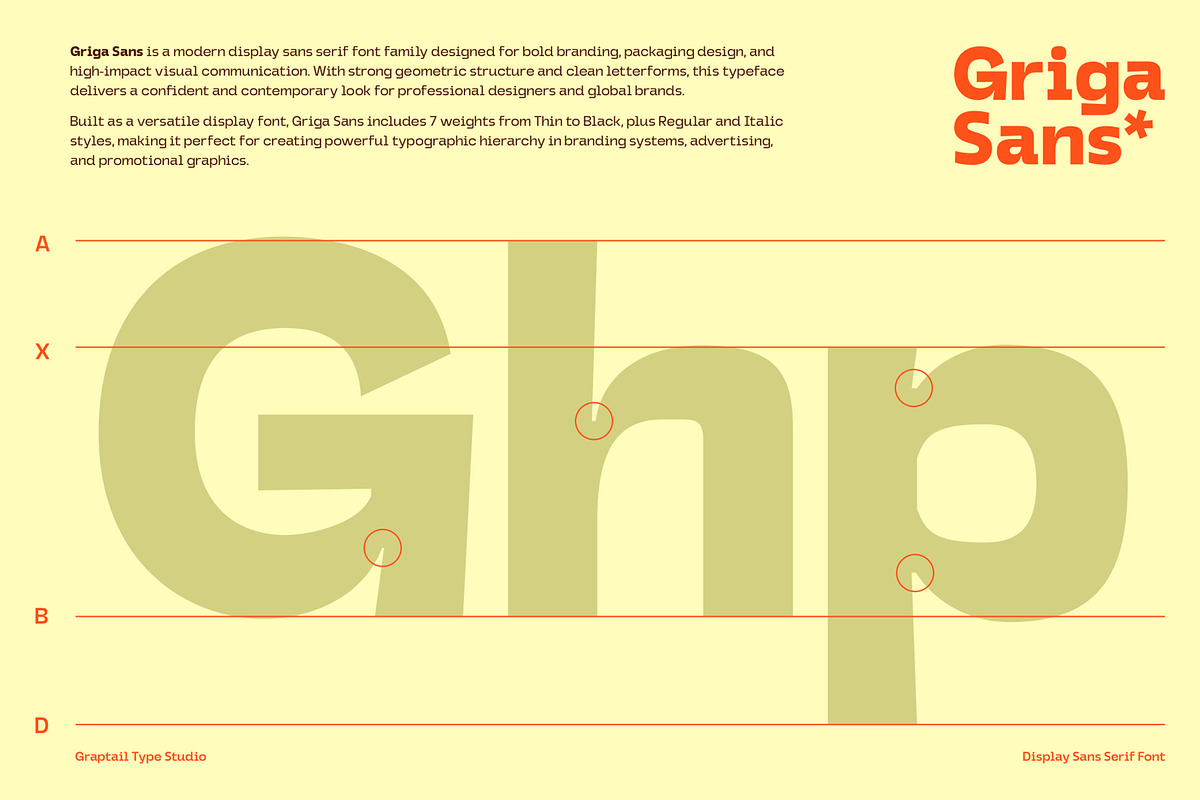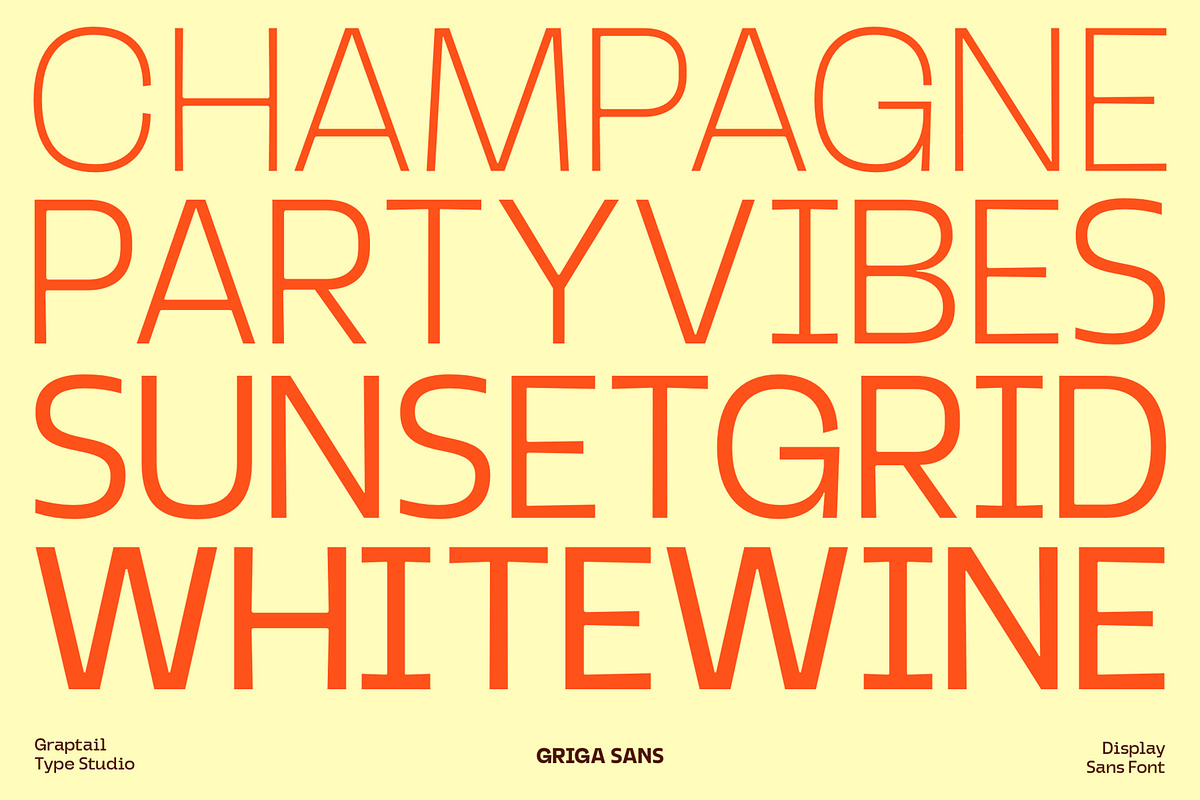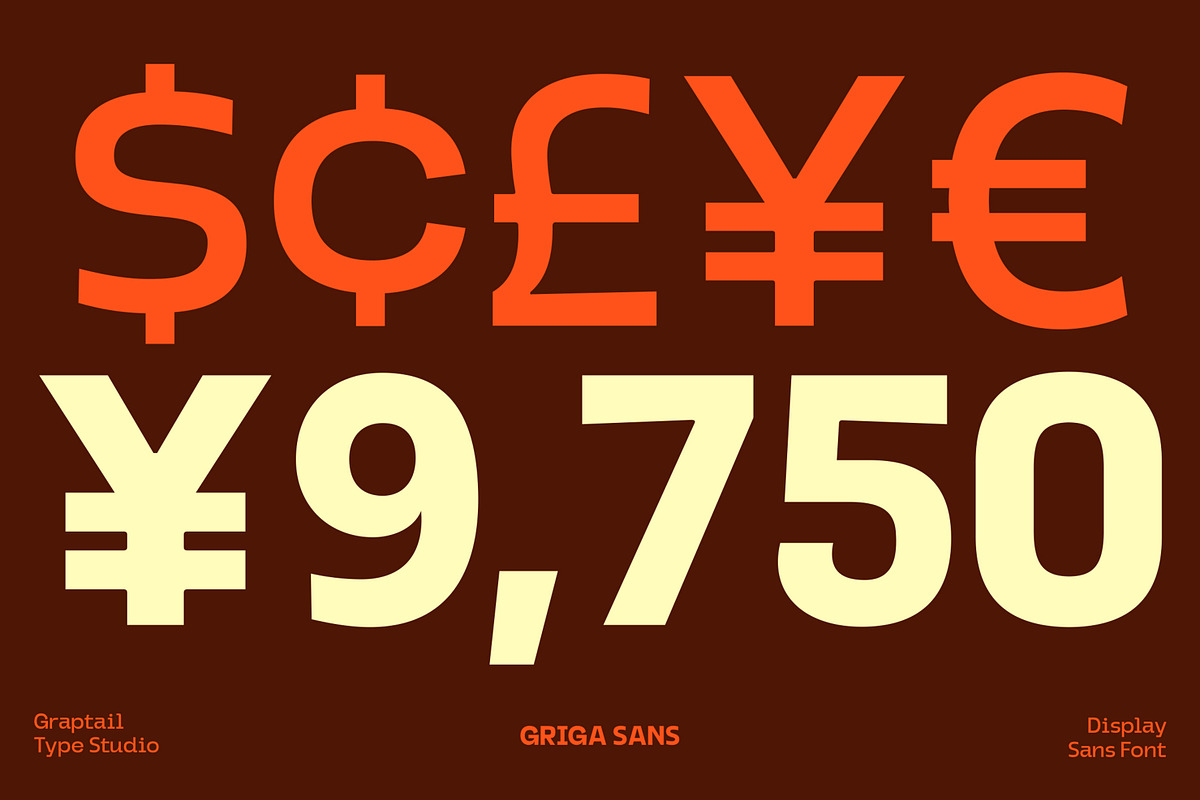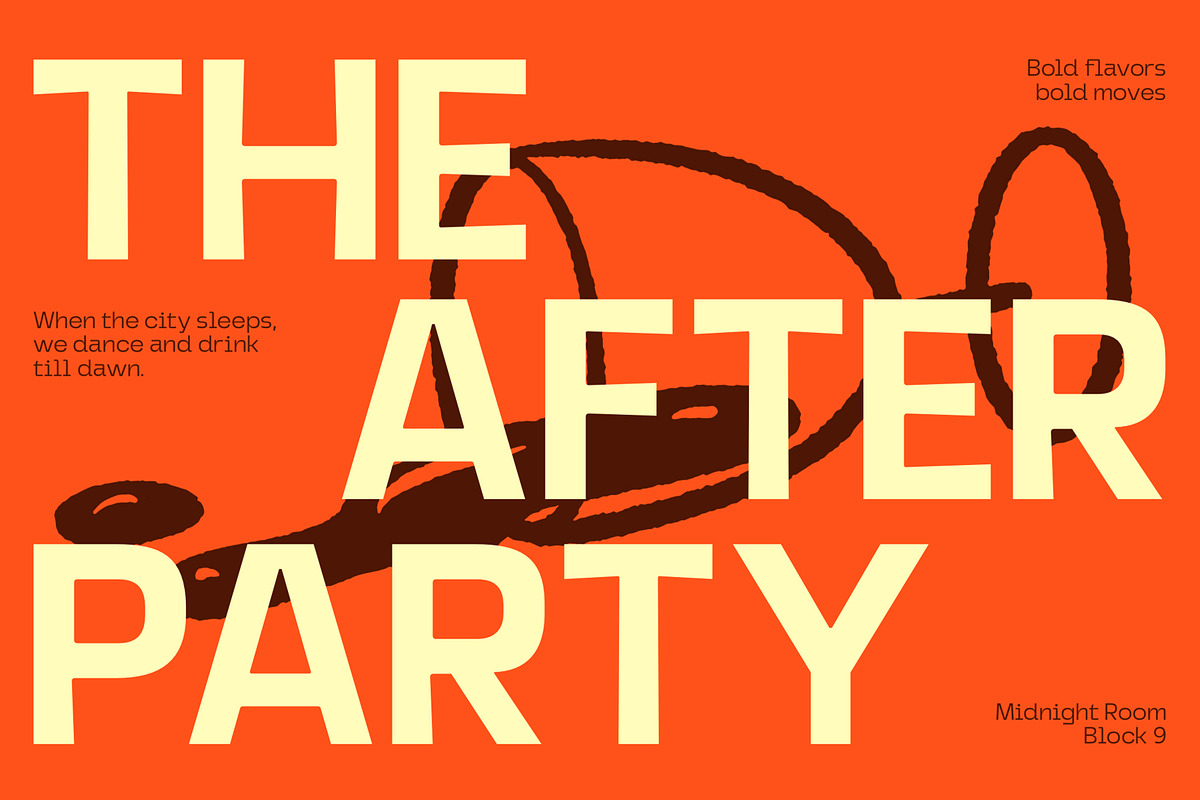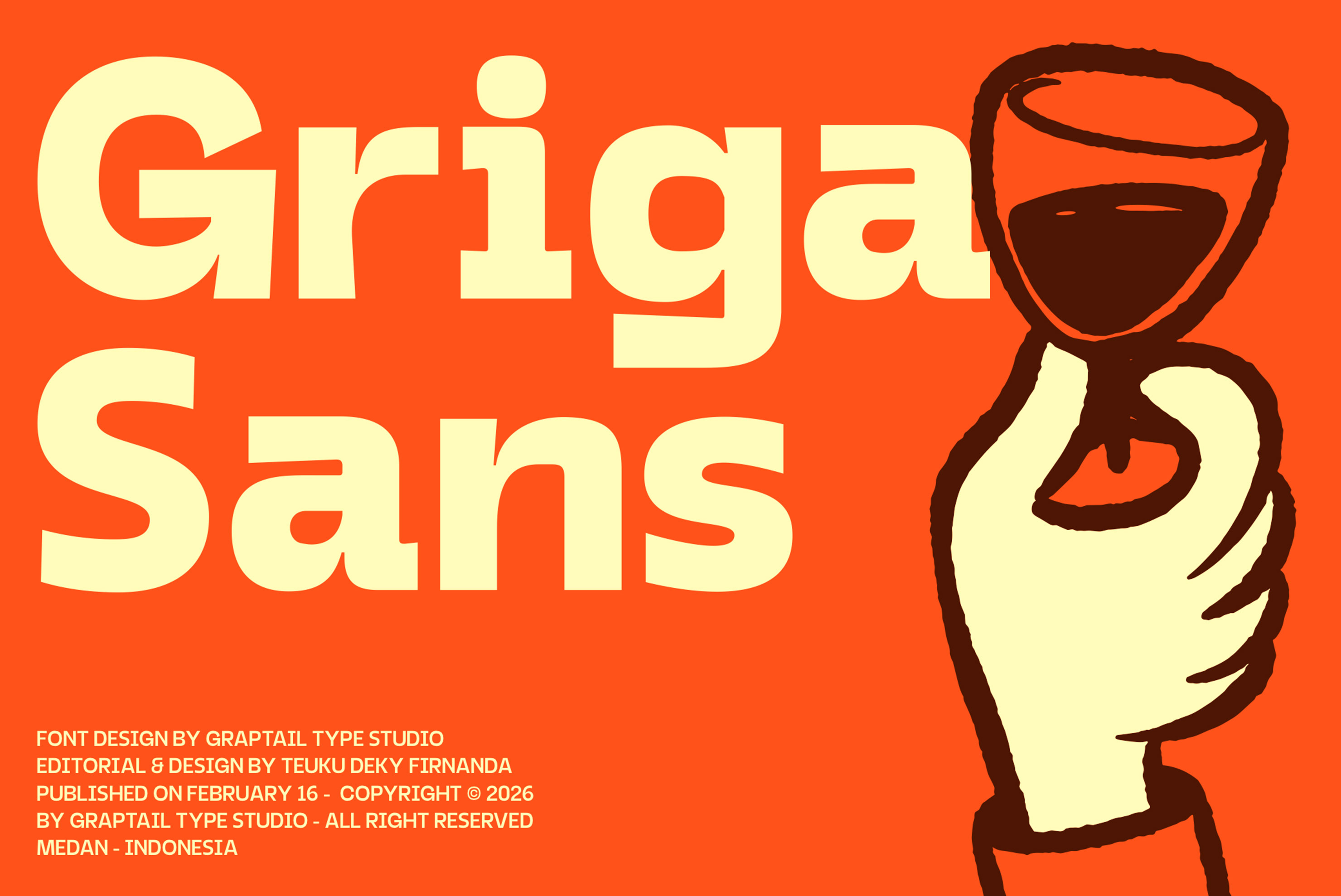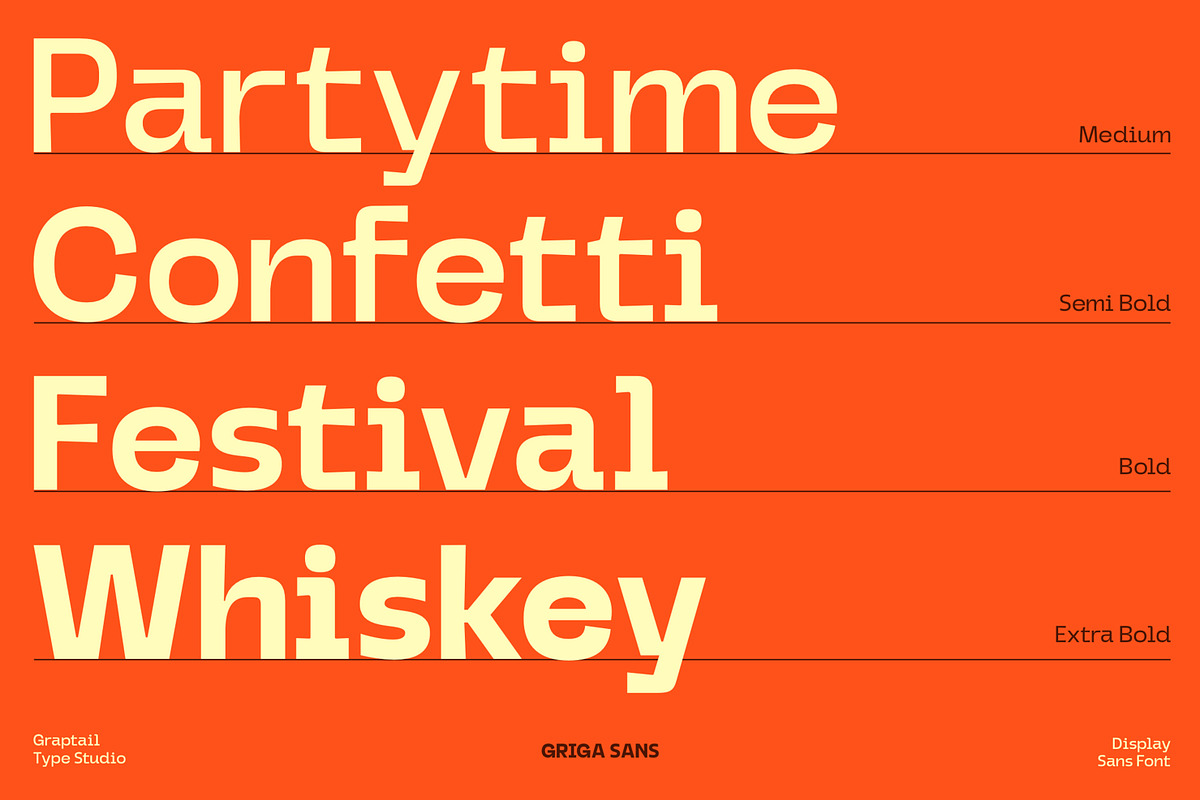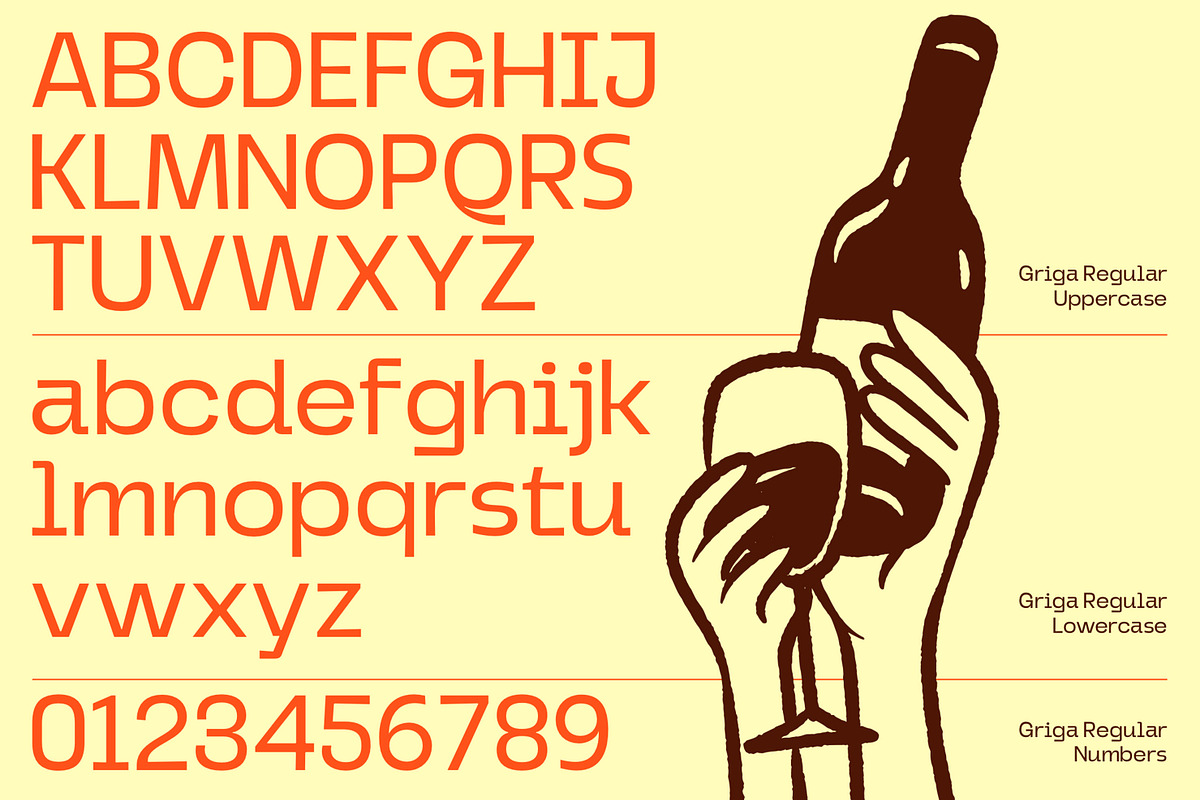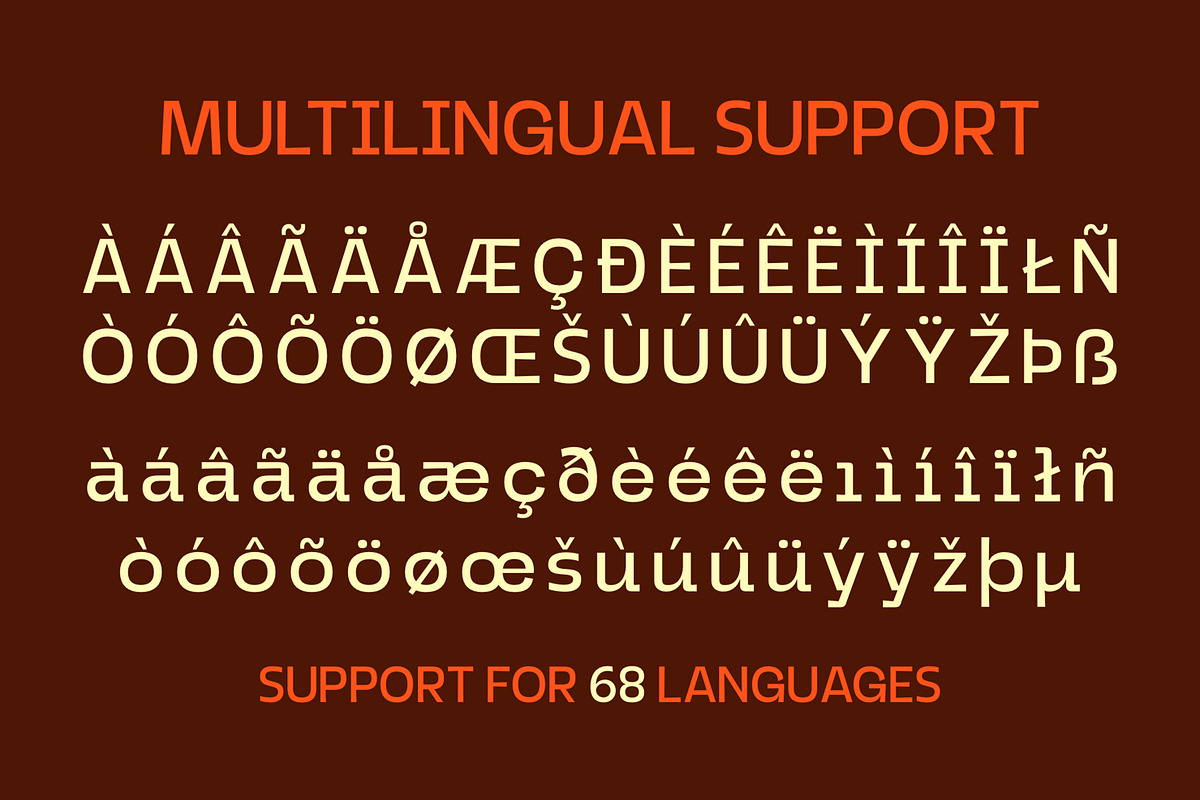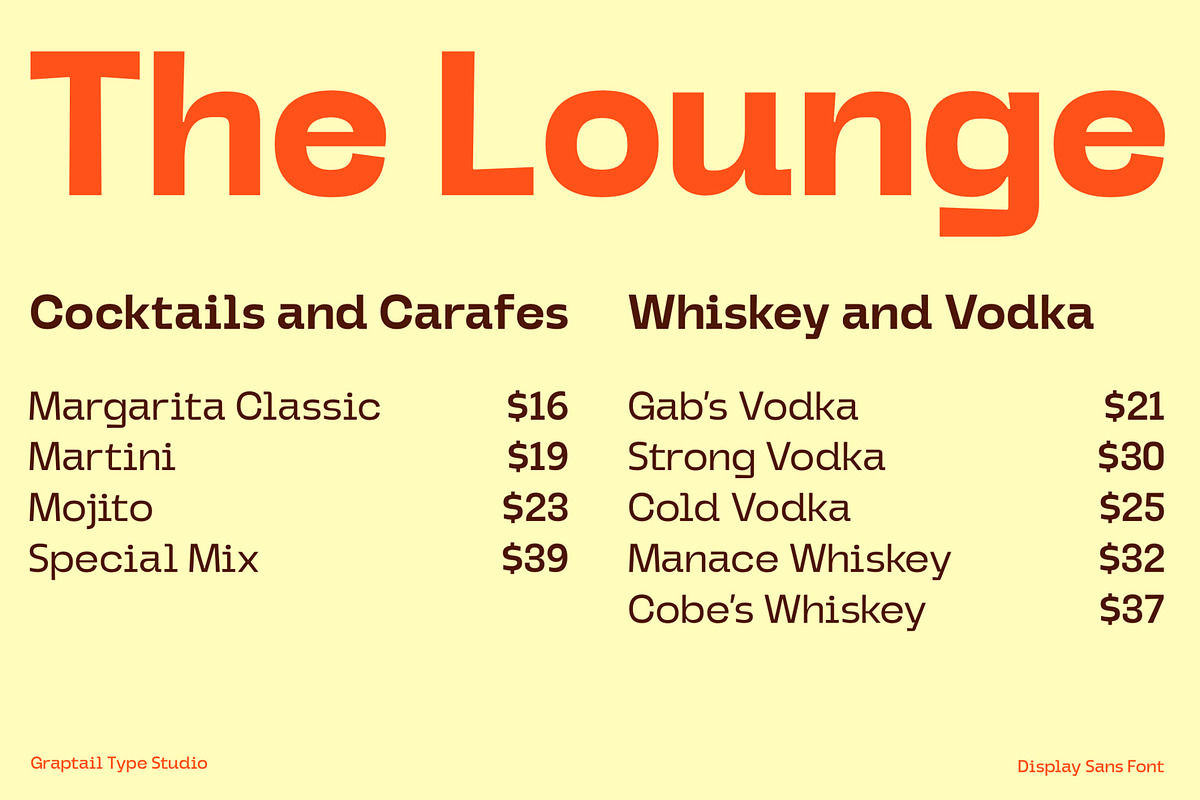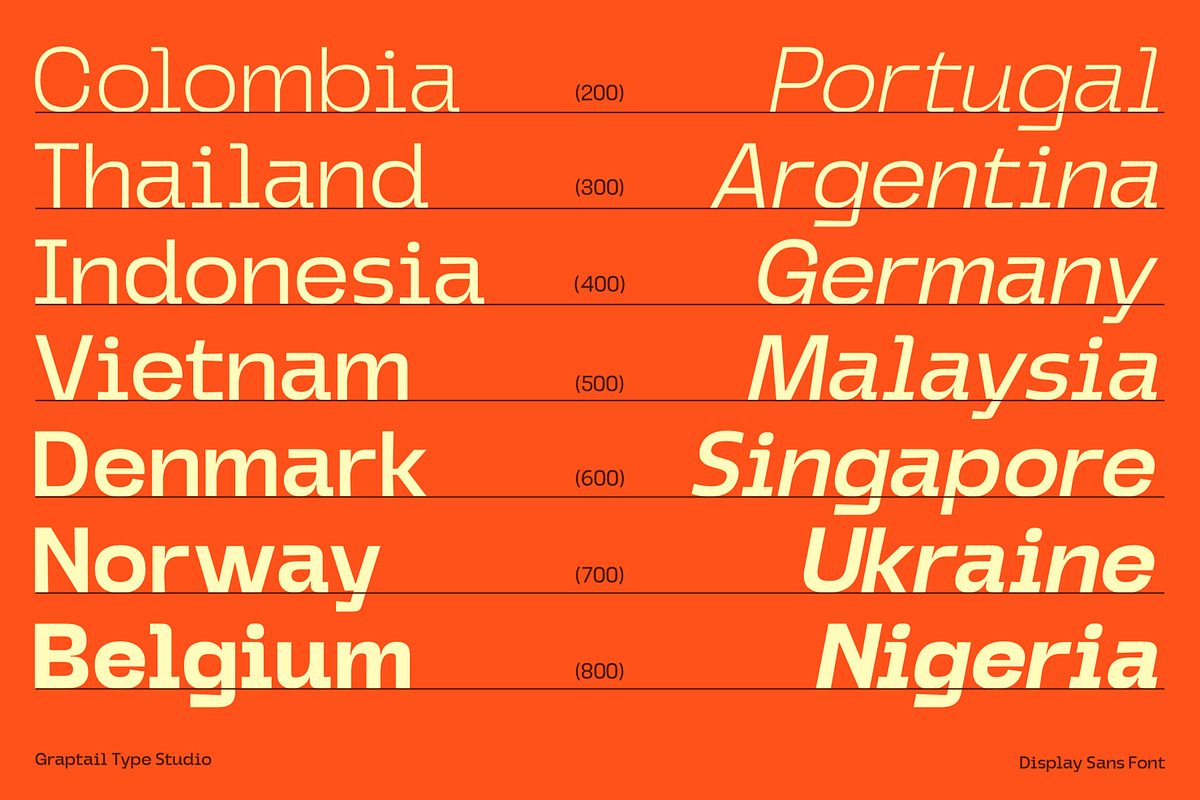
Griga Sans - Font Family
Griga Sans is a contemporary display sans serif designed with clarity, strength, and visual impact in mind. Its structured letterforms and balanced proportions make it particularly effective in large-scale applications where presence and readability are essential.
The family consists of 9 weights ranging from Thin to Black, accompanied by a Regular and Italic style, offering designers a versatile typographic system for building clear hierarchy and expressive contrast.
Griga Sans combines geometric construction with subtle detailing, resulting in a typeface that feels modern, stable, and adaptable across various visual contexts.
Family Features:
- 9 Weights
- Italic Style
- Extended Latin support
- Display-optimized letterforms
- Clean spacing and consistent rhythm
- Recommended Applications:
Brand identity systems, beverage and food packaging, film titles, posters, merchandise, editorial headlines, and promotional graphics.
Griga Sans is designed for designers seeking a strong display typeface with flexibility and a confident contemporary tone.